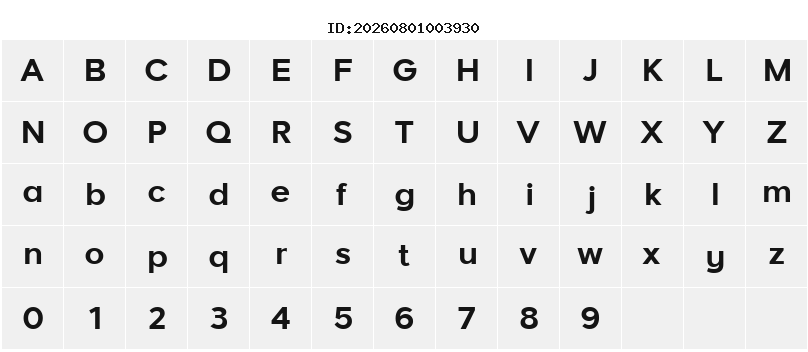
Larke Neue Bold Preview
• Font Name: Larke Neue Bold
• Full Font Name: Larke Neue Bold
About Larke Neue Bold.ttf
Larke Neue Bold.ttf is a modern, elegant sans-serif font designed for ultimate readability and visual harmony. Perfect for branding, headlines, web design, and print materials.